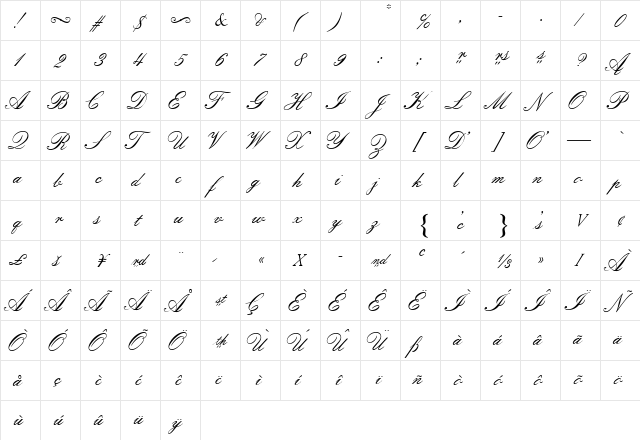
ATFlorentineScript Regular
ATFlorentineScript flows with the natural rhythm of handwritten lettering, making it ideal for designs that call for warmth and personal expression.
Font Pairing: Combine ATFlorentineScript with a simple geometric sans for maximum contrast — the tension between flowing curves and clean structure is a classic typographic pairing.
Pro Tip: Use ATFlorentineScript for short runs of text — names, titles, or taglines. Extended body copy in script faces tires the eye quickly.